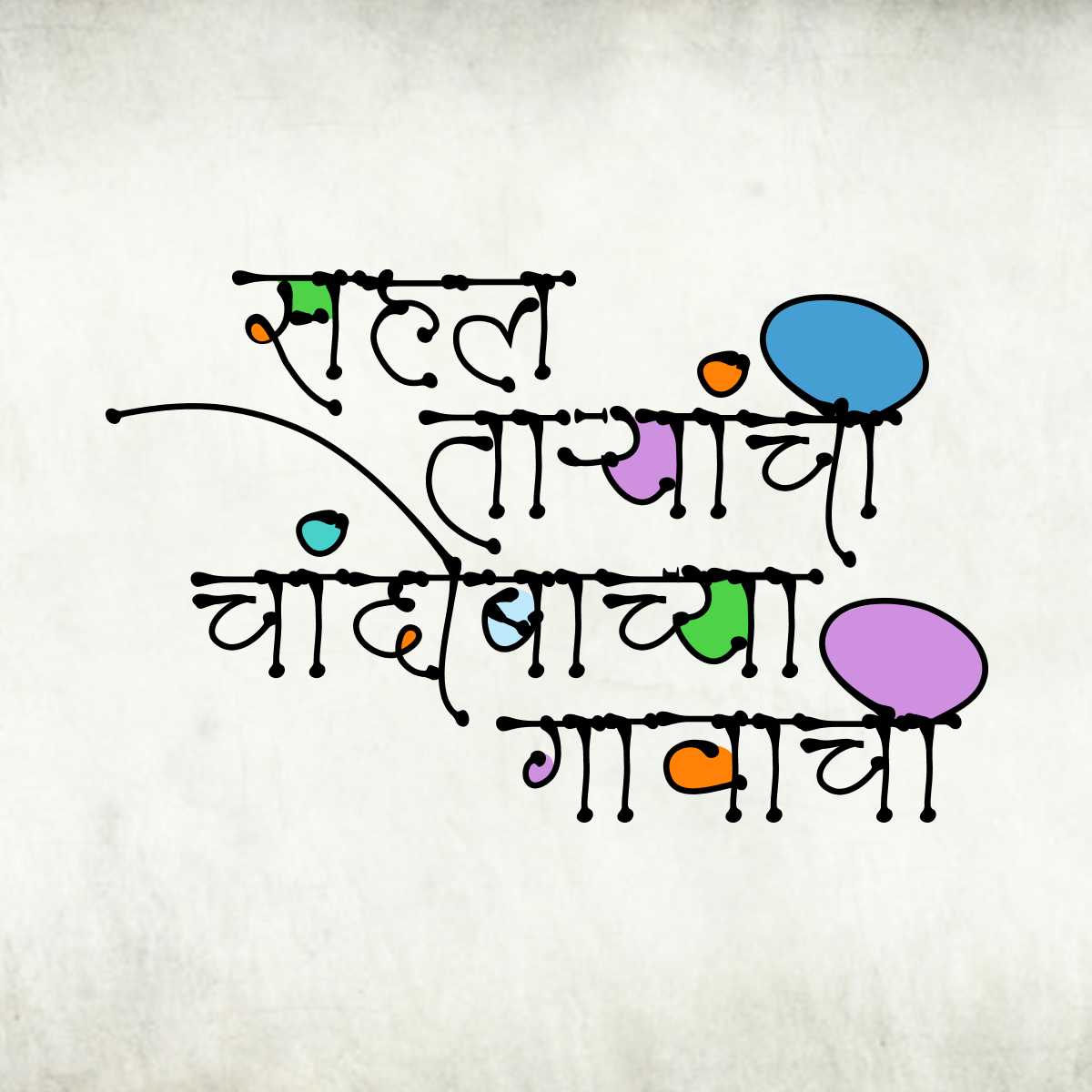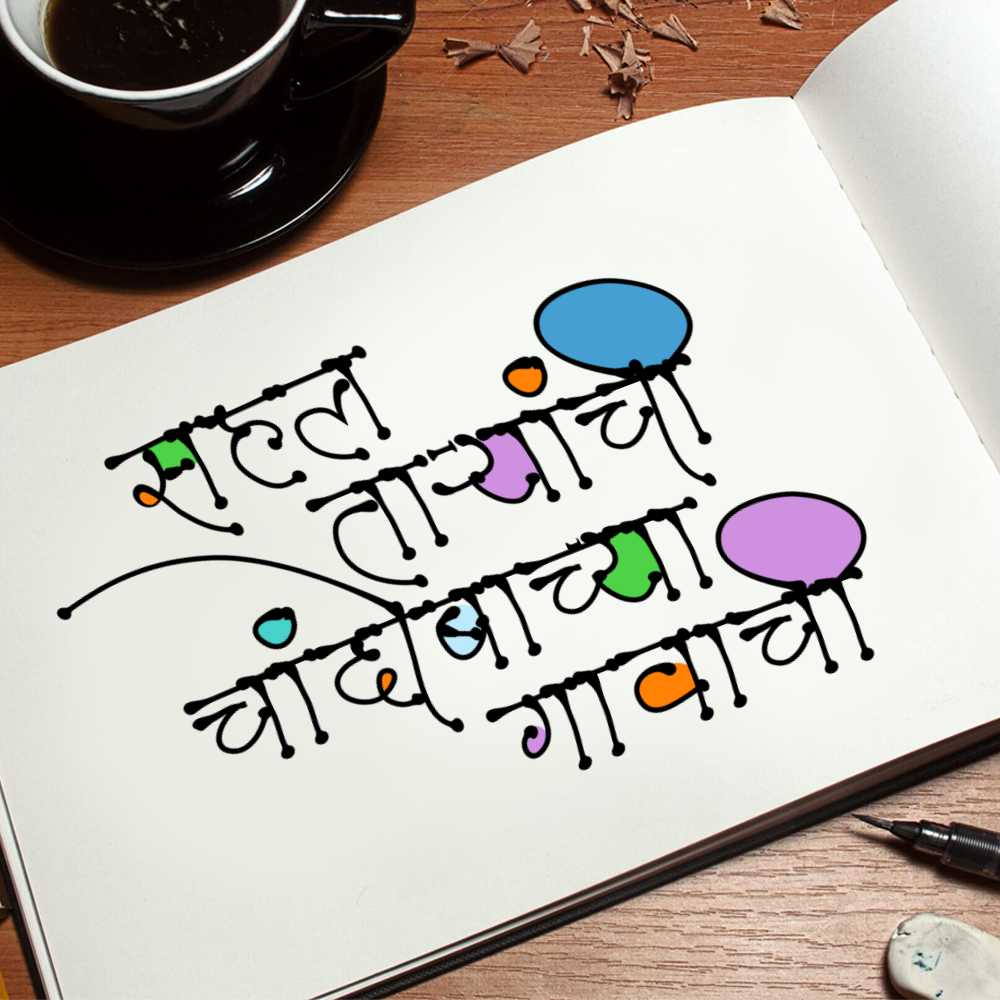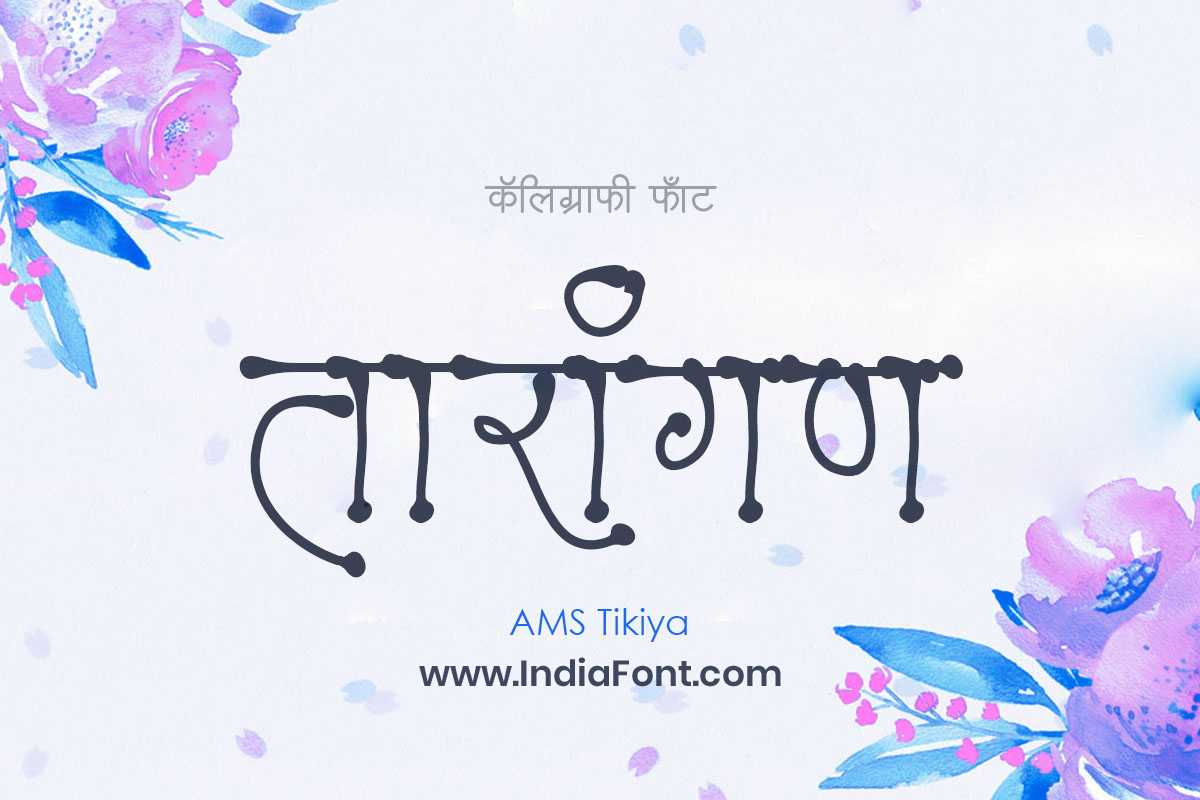
AMS Tikiya
Add a touch of whimsy and playfulness to your designs with AMS Tikiya, a decorative font that sparks imagination. This font is perfect for designers seeking stylish Hindi fonts, decorative fonts with a unique flair, or fonts that offer a unique font style download.
AMS Tikiya Design Inspiration
About AMS Tikiya Font
Add a touch of whimsy and playfulness to your designs with AMS Tikiya, a decorative font that sparks imagination. This font is perfect for designers seeking stylish Hindi fonts, decorative fonts with a unique flair, or fonts that offer a unique font style download. This decorative font combines elegance with functionality, making it perfect for various design applications.
AMS Tikiya is a professionally crafted decorative typeface that brings clarity and style to your projects. Designed with attention to detail, it supports hindi and marathi characters flawlessly.
Whether you're working on wedding-materials, headers-titles, posters, or other creative projects, AMS Tikiya delivers consistent performance across both digital and print media. This carefully designed typeface ensures readability and visual appeal in all your design work.
AMS Tikiya excels in various design scenarios. Here are the most suitable applications:
About AMS Tikiya Typography Style
AMS Tikiya is a professionally crafted decorative font that exemplifies modern Hindi typography design. This free font is perfect for designers seeking impactful poster and display applications.
Available in 1 weight and supporting hindi, marathi scripts, AMS Tikiya offers exceptional versatility for both digital and print media. Whether you're working on wedding-materials, headers-titles, posters, this carefully designed typeface ensures consistent quality and professional results across all your typography projects.